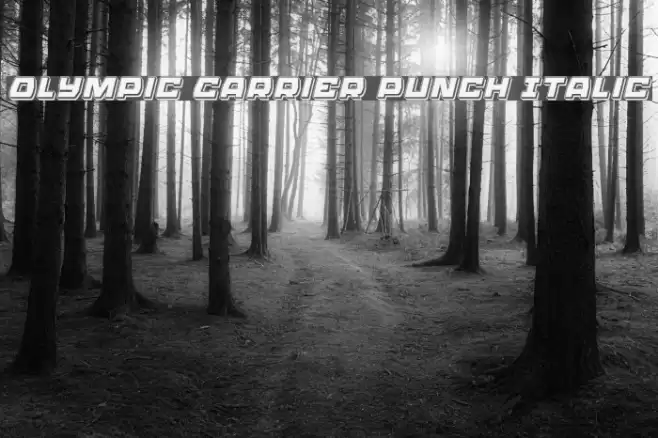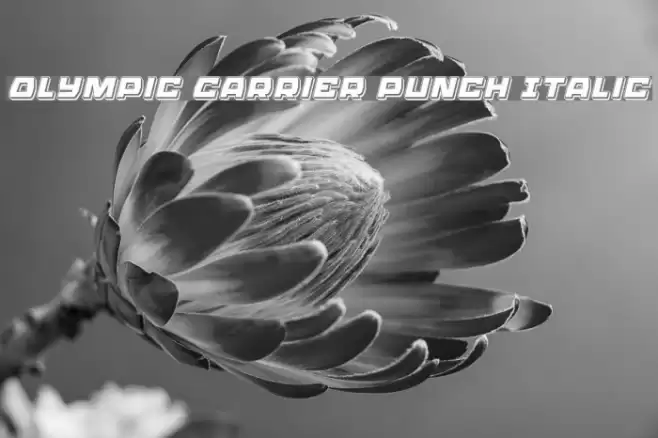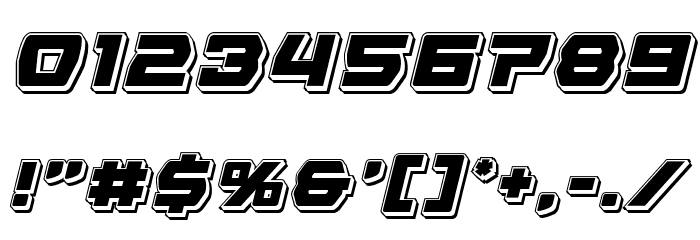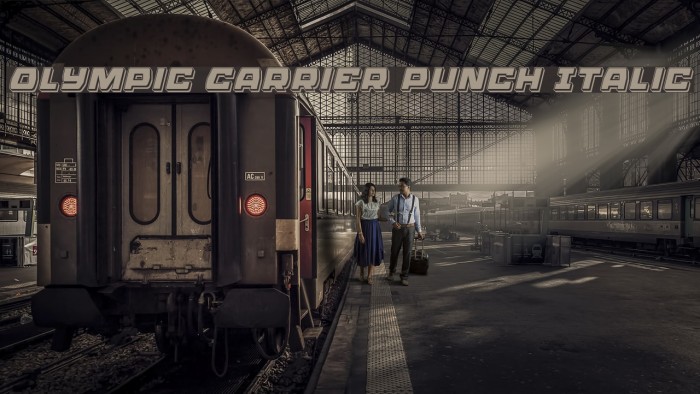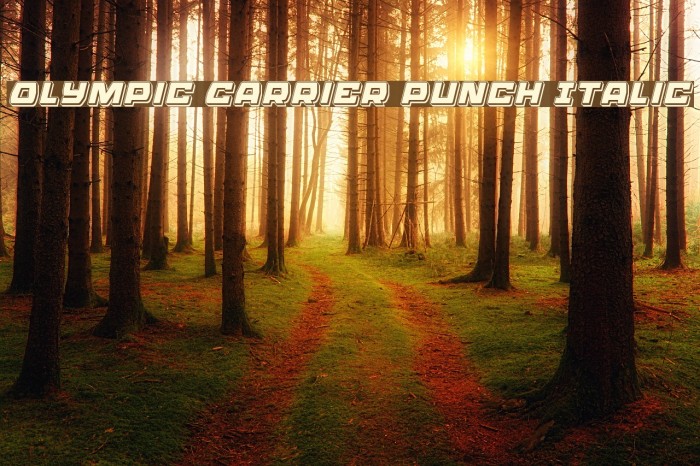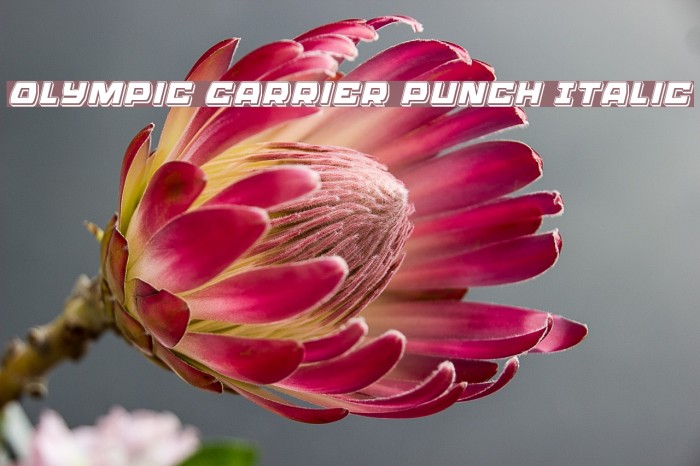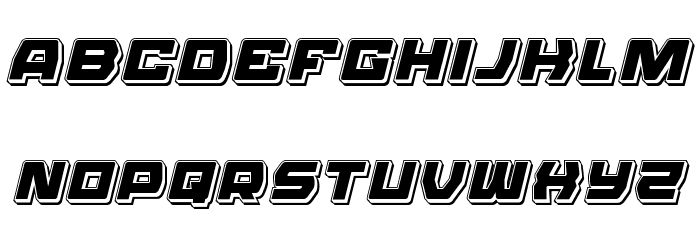
Olympic Carrier Punch Italic Font
Olympic Carrier Punch Italic Description
This font features a bold, dynamic style with a strong geometric influence. The characters are outlined with a thick border, giving them a three-dimensional appearance. The italic slant adds a sense of motion and energy, making it ideal for attention-grabbing designs. The uppercase letters are prominent and impactful, while the numerals and special characters maintain the same bold aesthetic. The overall design is modern and futuristic, suitable for projects that require a strong visual impact.
A bold, geometric, italic font with a three-dimensional outline from Sci-fi fonts.
- Proposed Projects: Ideal for sports branding, video game titles, posters, and dynamic advertising.